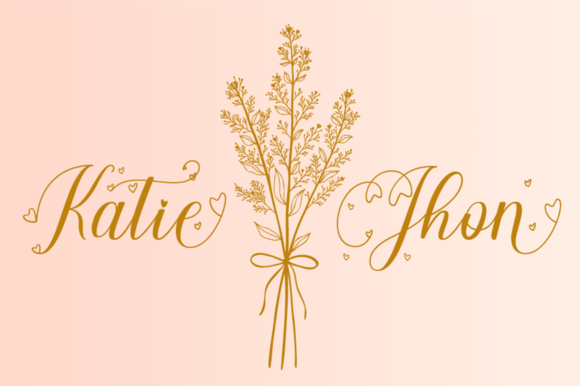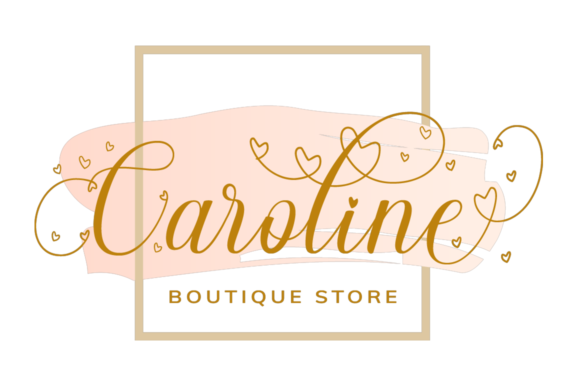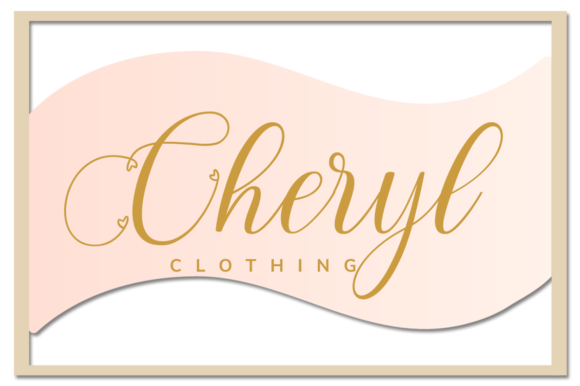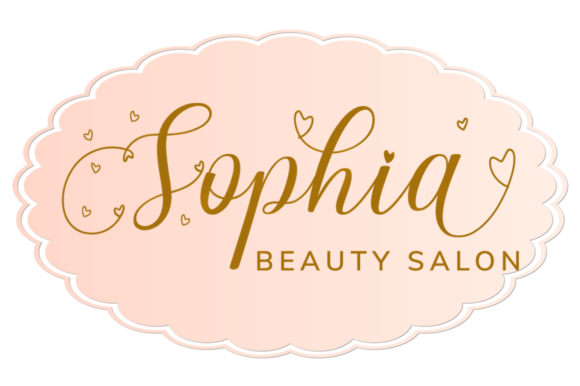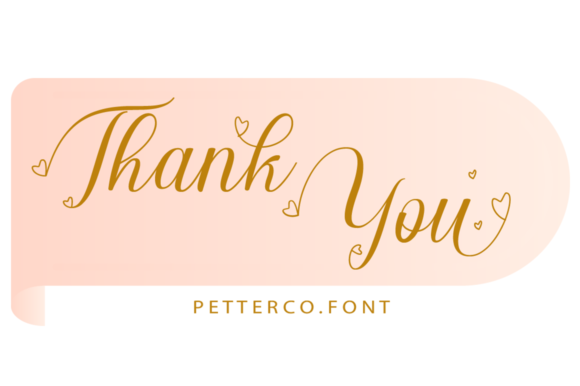
Hello Angel Font
About Hello Angel Font
Hello Angel is a refined and cursive handwritten font. This gentle font will look gorgeous on a variety of design ideas. This font is PUA encoded which means you can access all of the glyphs and swashes with ease!